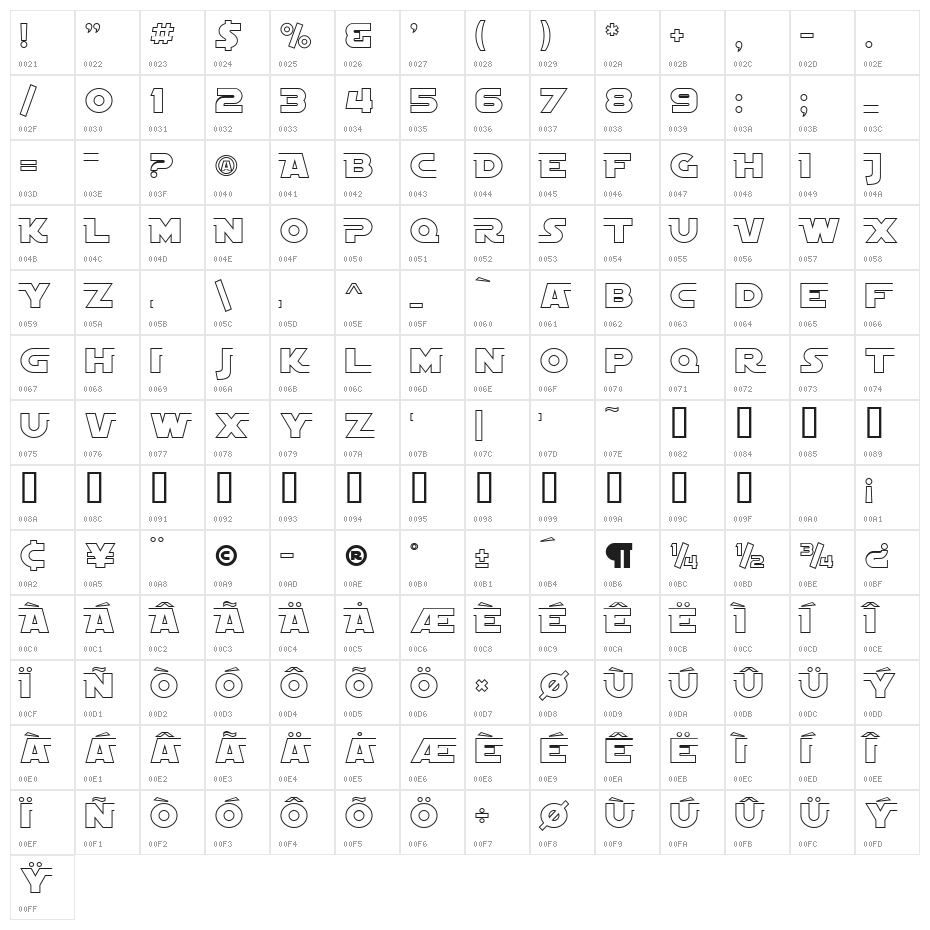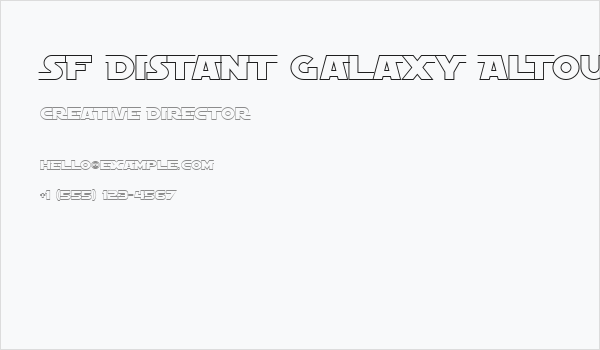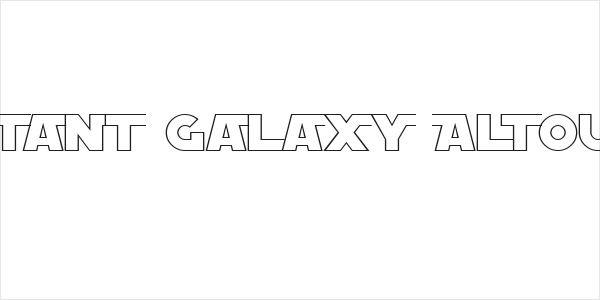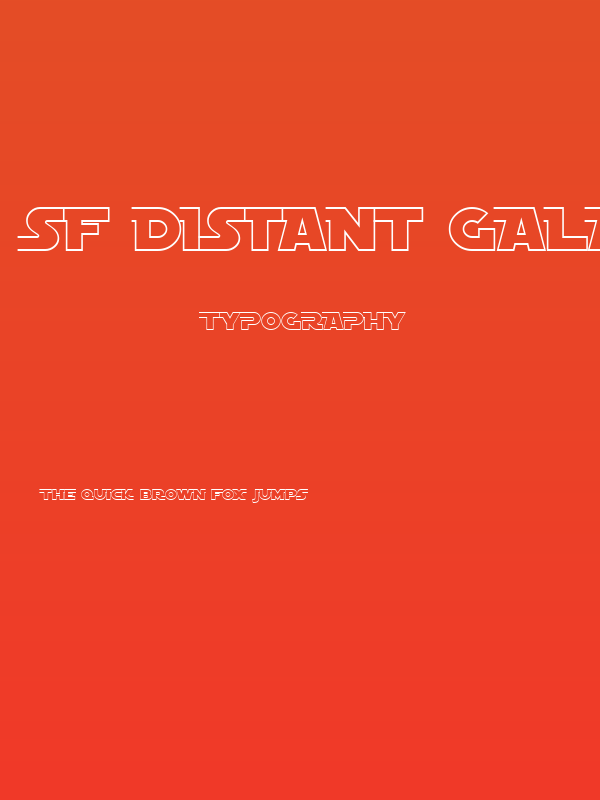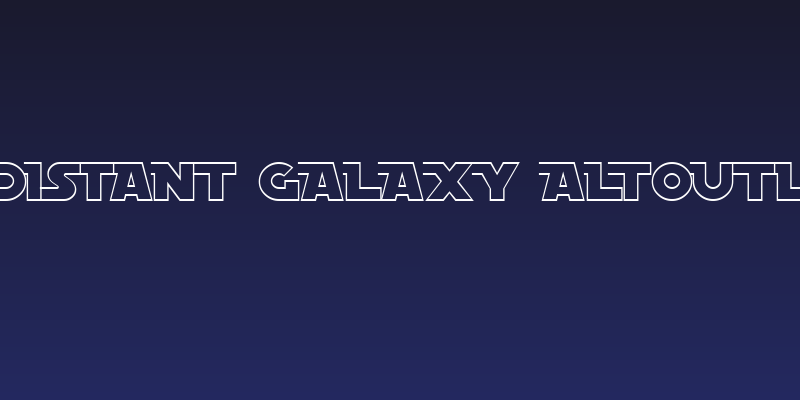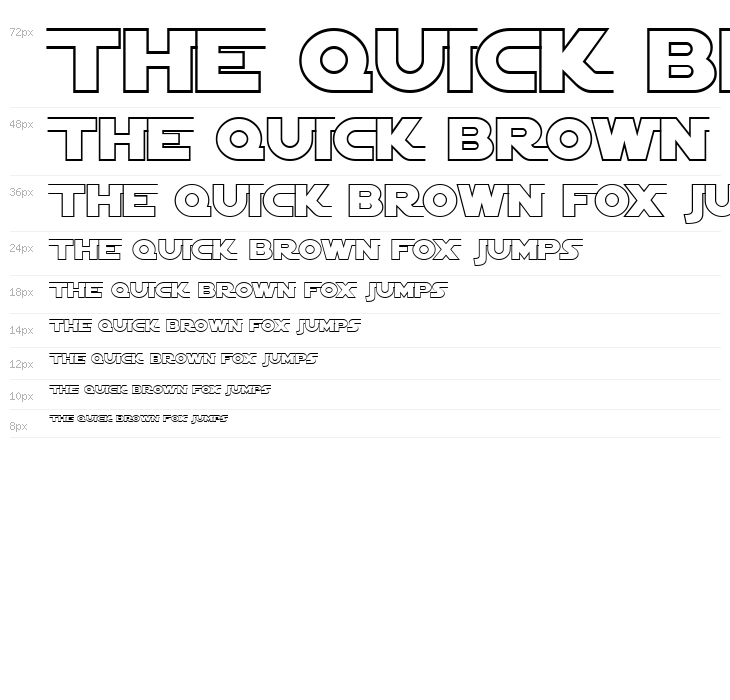
SF Distant Galaxy AltOutline Font
SF Distant Galaxy AltOutline Description
This font features a bold, futuristic design with a distinct outline style that gives each character a three-dimensional appearance. The uppercase letters are geometric and angular, with sharp edges and a consistent stroke width that creates a cohesive look. The numbers and special characters maintain this aesthetic, ensuring uniformity across all glyphs. The font's outline nature makes it ideal for creating standout text that captures attention, making it suitable for various creative applications. Its unique style is reminiscent of science fiction themes, adding a modern and dynamic touch to any project.
| Overall Style | Futuristic, Modern |
| Proposed Projects | Ideal for sci-fi themed posters, video game titles, futuristic branding, and digital artwork. |